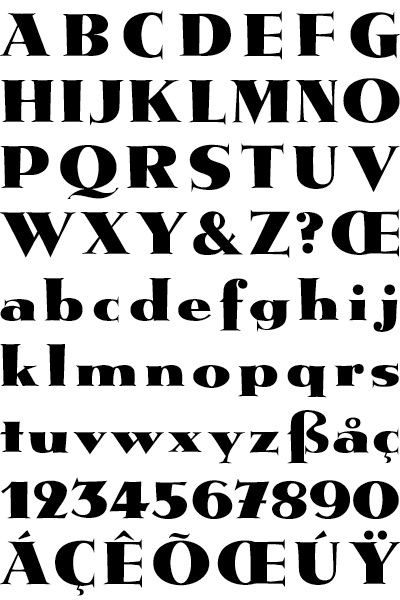
Maximillian CT
Maximillian is another design that caught my eye in one of my art deco type books. After I finished the face, I noticed that there is a more clean-cut version of this face in digital format, but my version retains more of the funkiness of the original drawings. Based on Maximilian Antiqua, originally designed by Rudolf Koch in 1914.